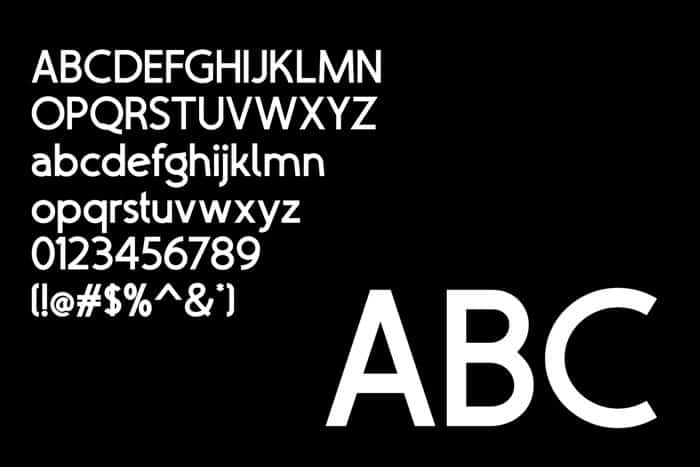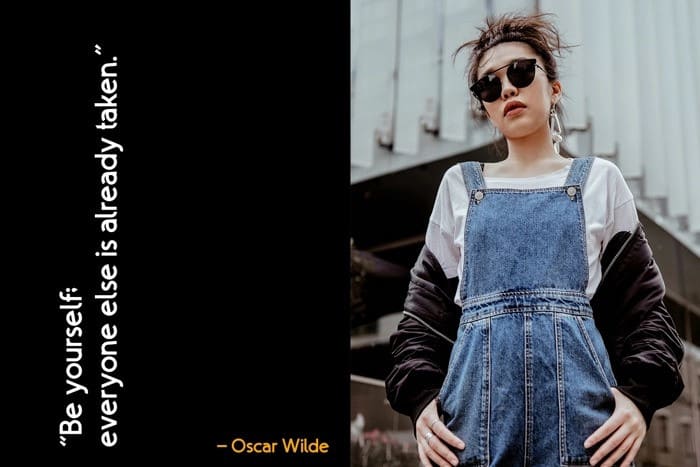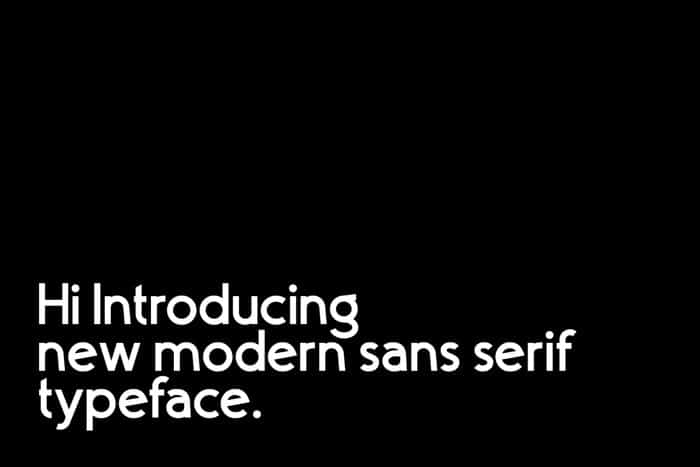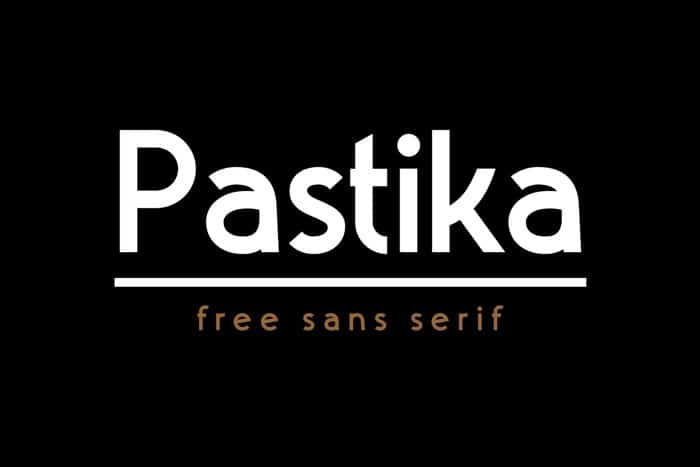
Pastika Sans Serif Font
Pastika Sans Serif Font is a typeface with disruptive shapes, inspired by the aesthetics of technology from the 80s and 90s, when they had a very particular style of seeing the future. It takes its skeleton from old style typefaces like Windsor or Cooper. Really playful typeface to covering your Project, like Magazine, Branding, Poster, wedding invitations, Tshirt, Logos, and more your project design.